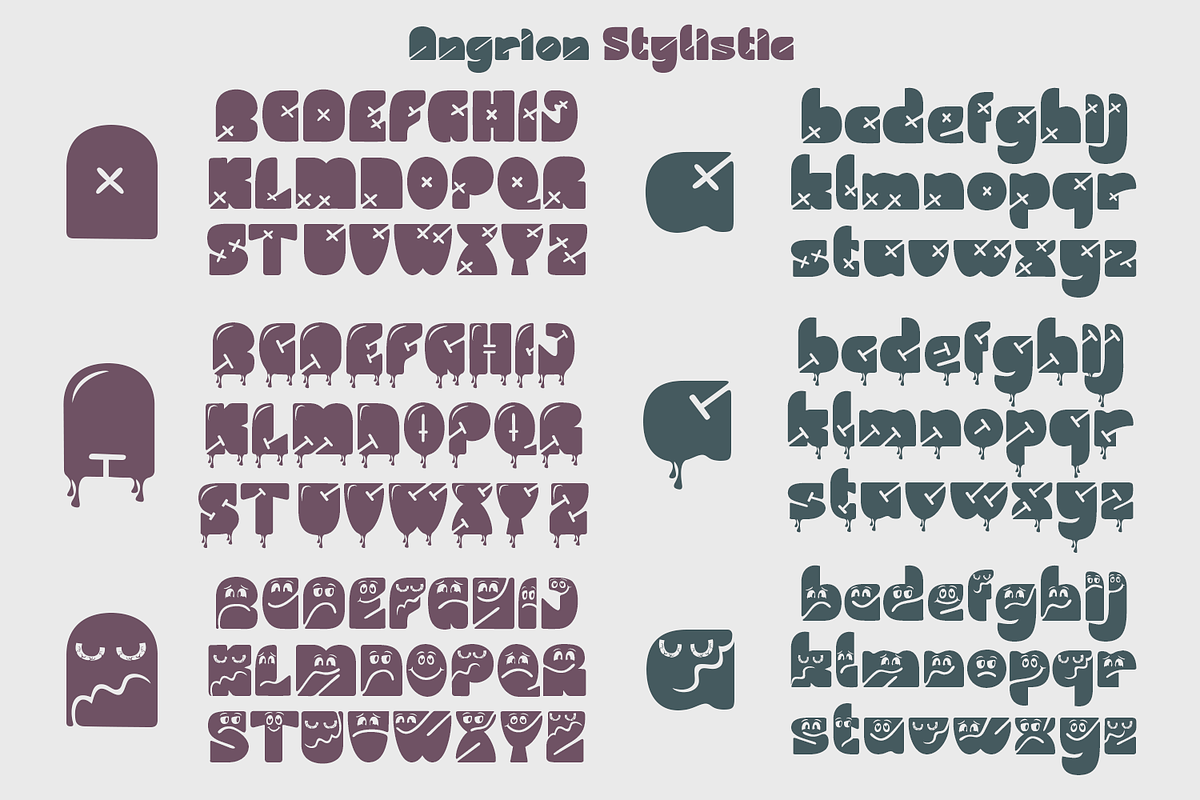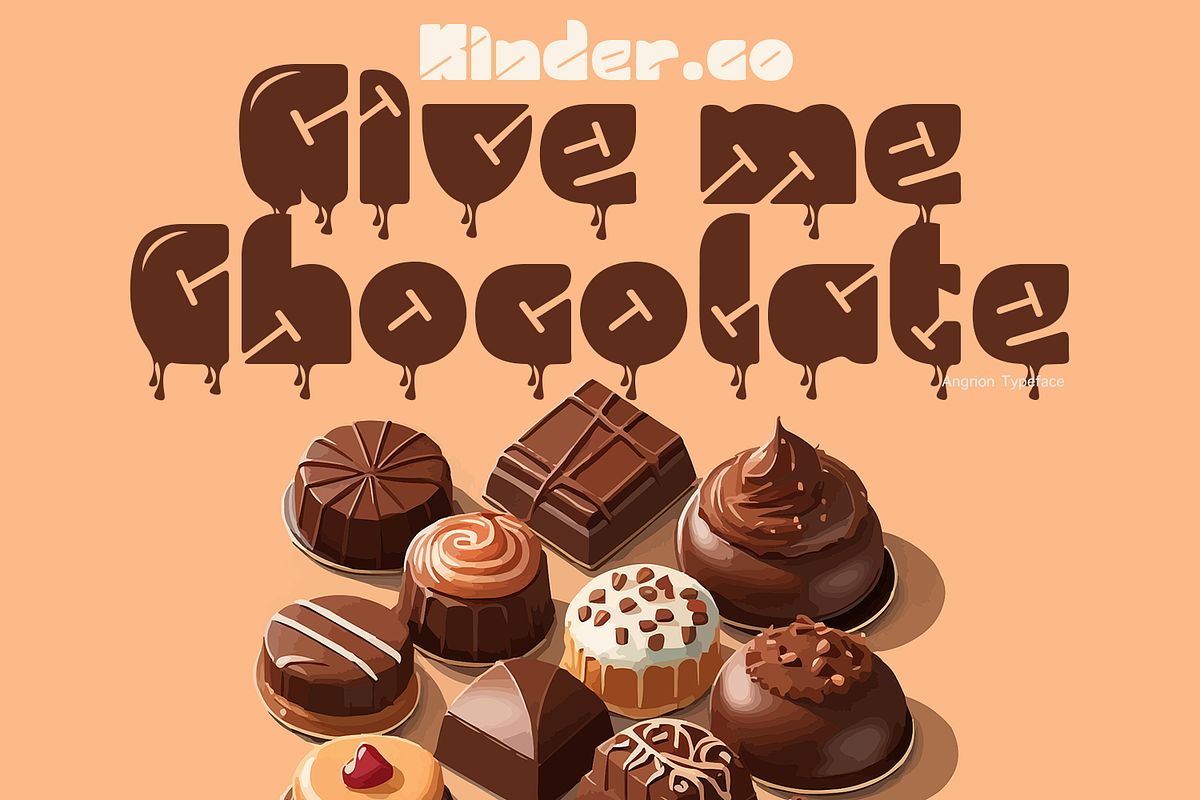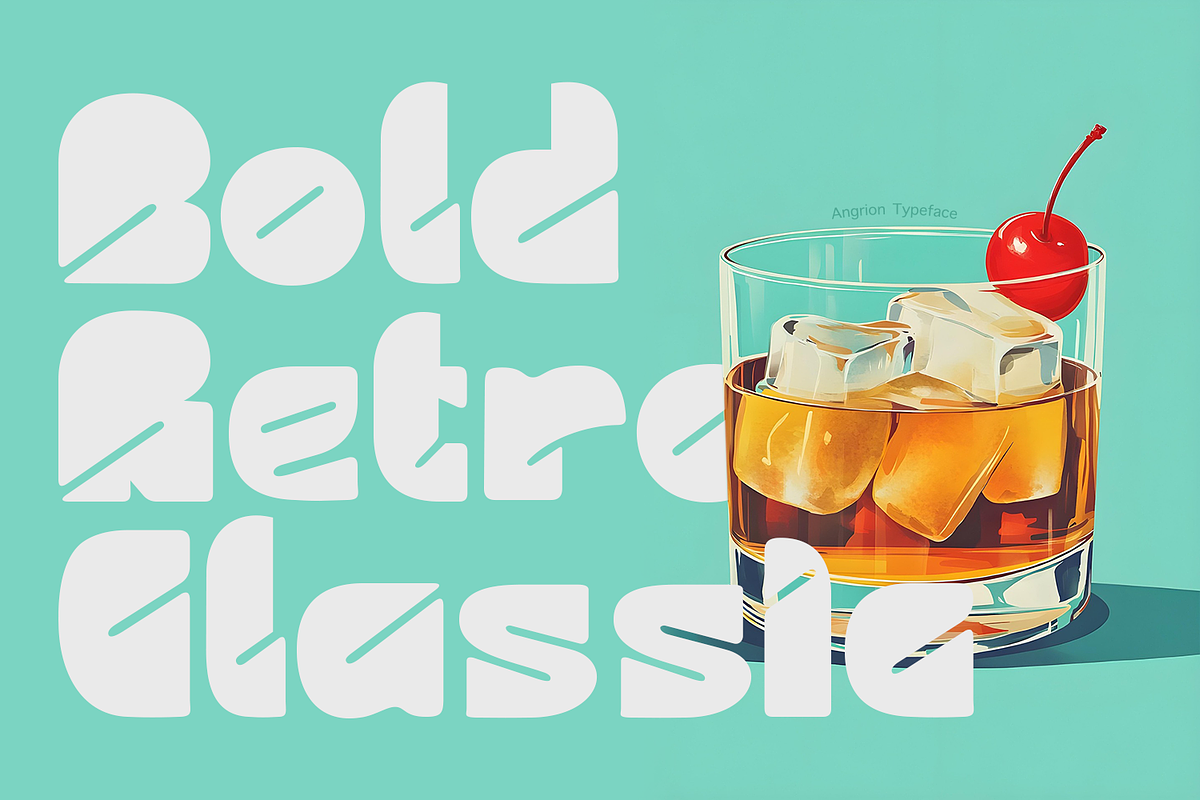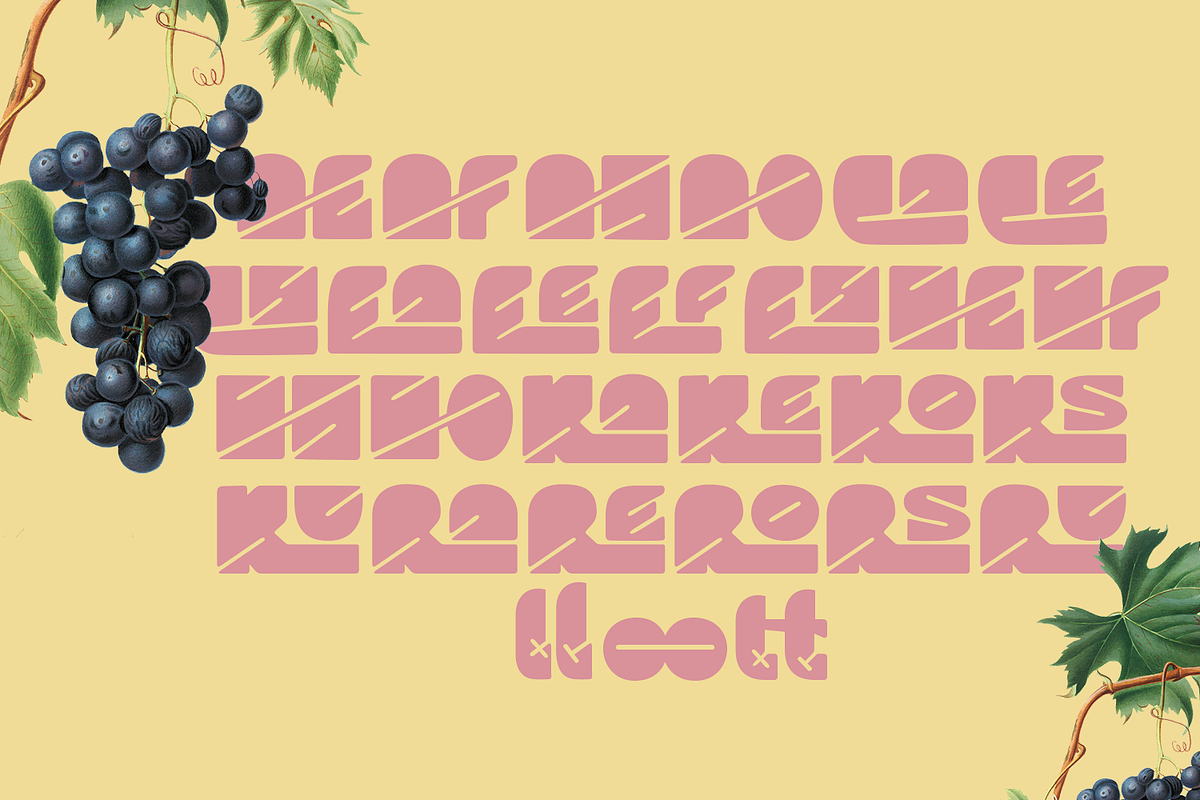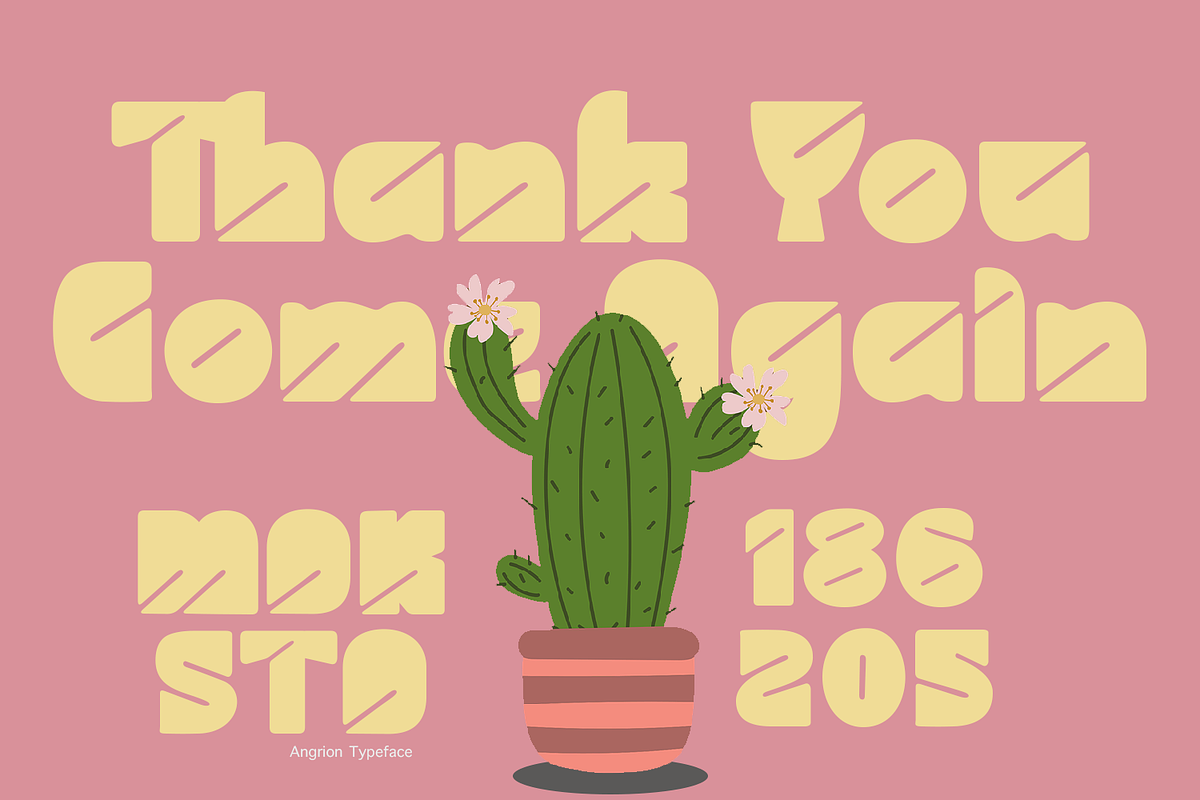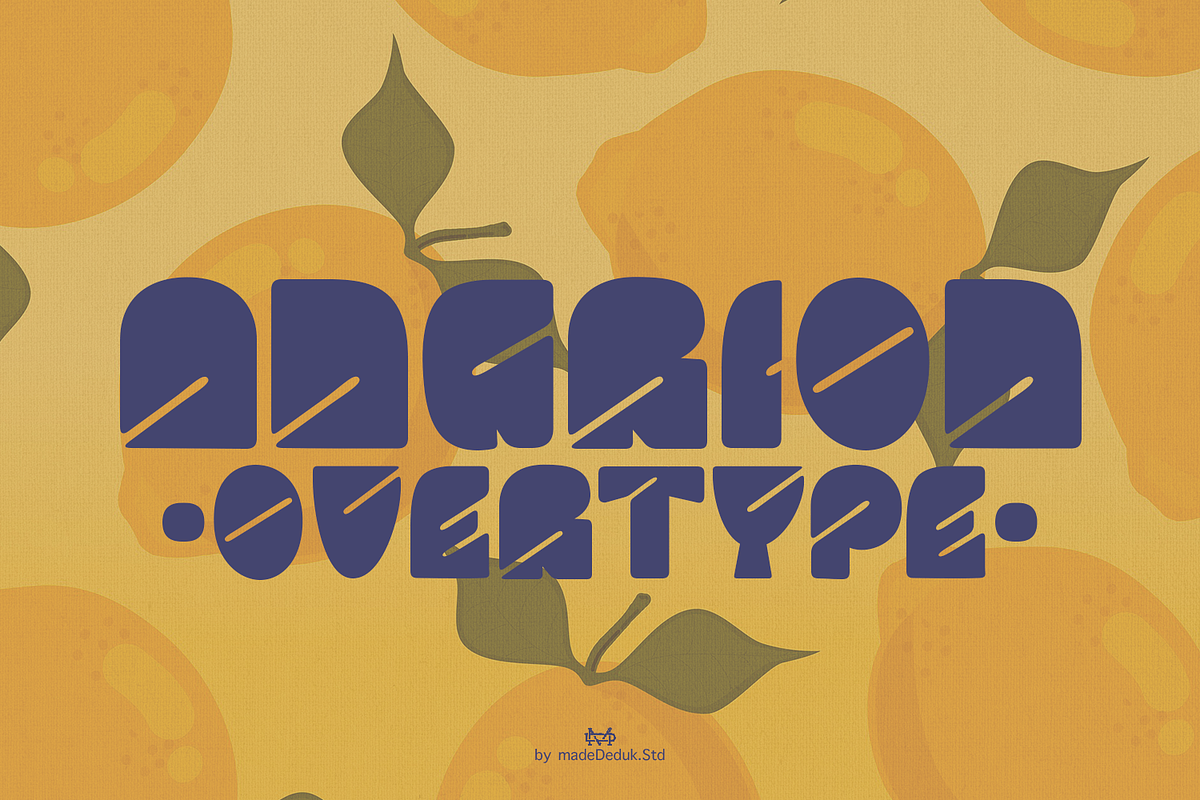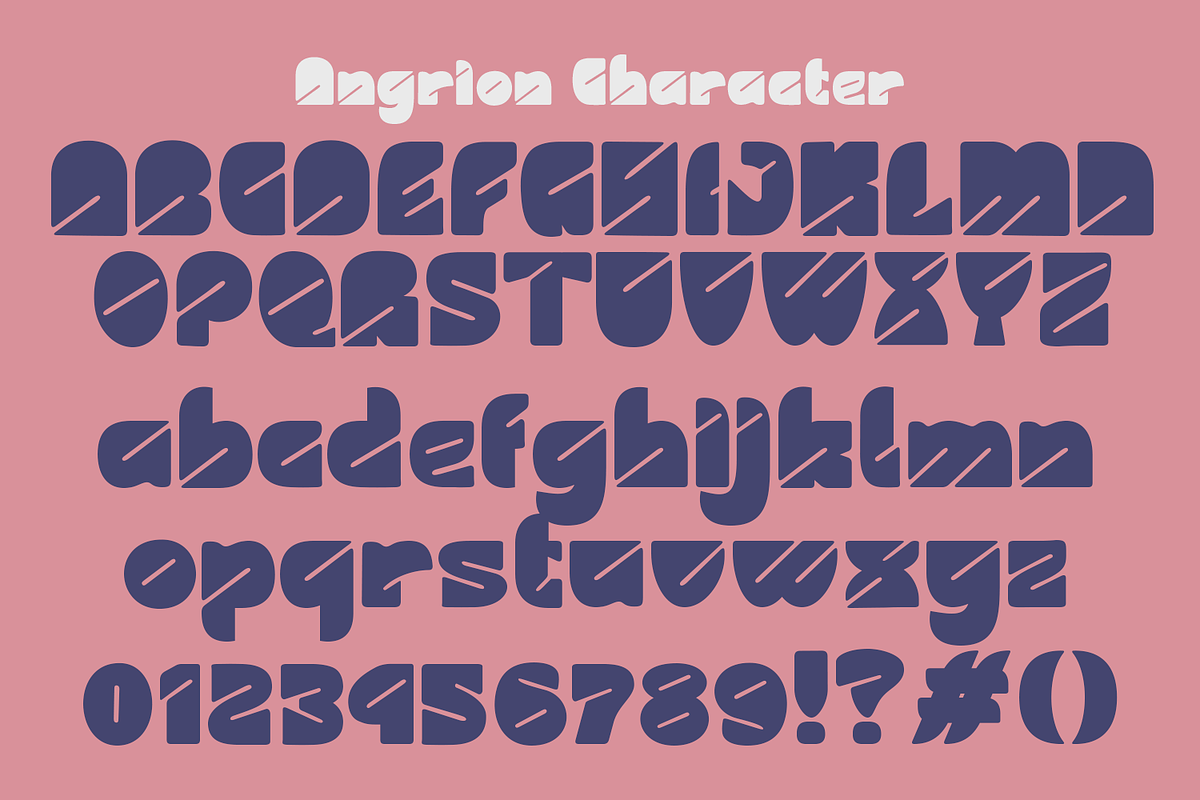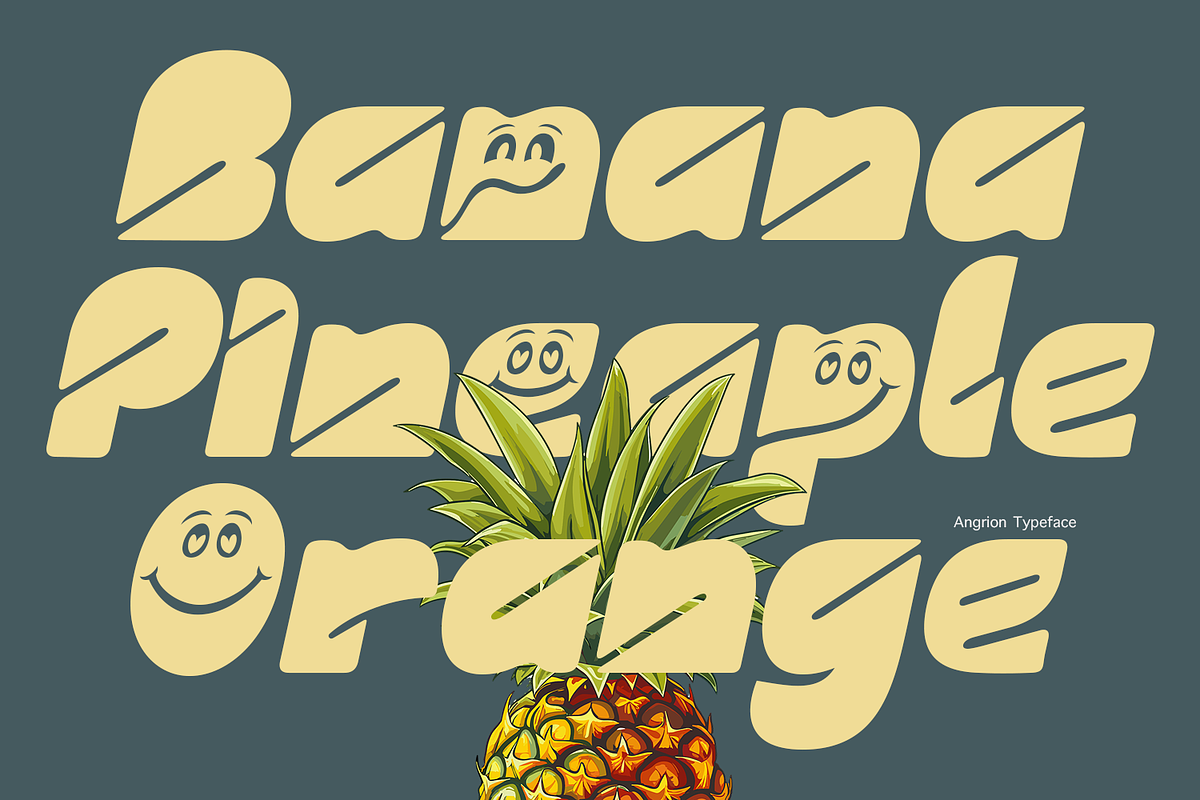
Angrion Overtype
Introducing Angrion, a bold and rounded font that infuses a warm and friendly vibe into every word. Ideal for designs aiming for a fun, playful, and memorable aesthetic, it adds a delightful touch of charm and cheer to any project. This versatile font is perfect for various applications, including book titles, branding, product packaging, invitations, quotes, labels, posters, and logos. With its range of weights and OpenType features, Angrion stands out as a powerful choice for creative endeavors, ensuring your designs capture attention and leave a lasting impression.
- International Glyphs